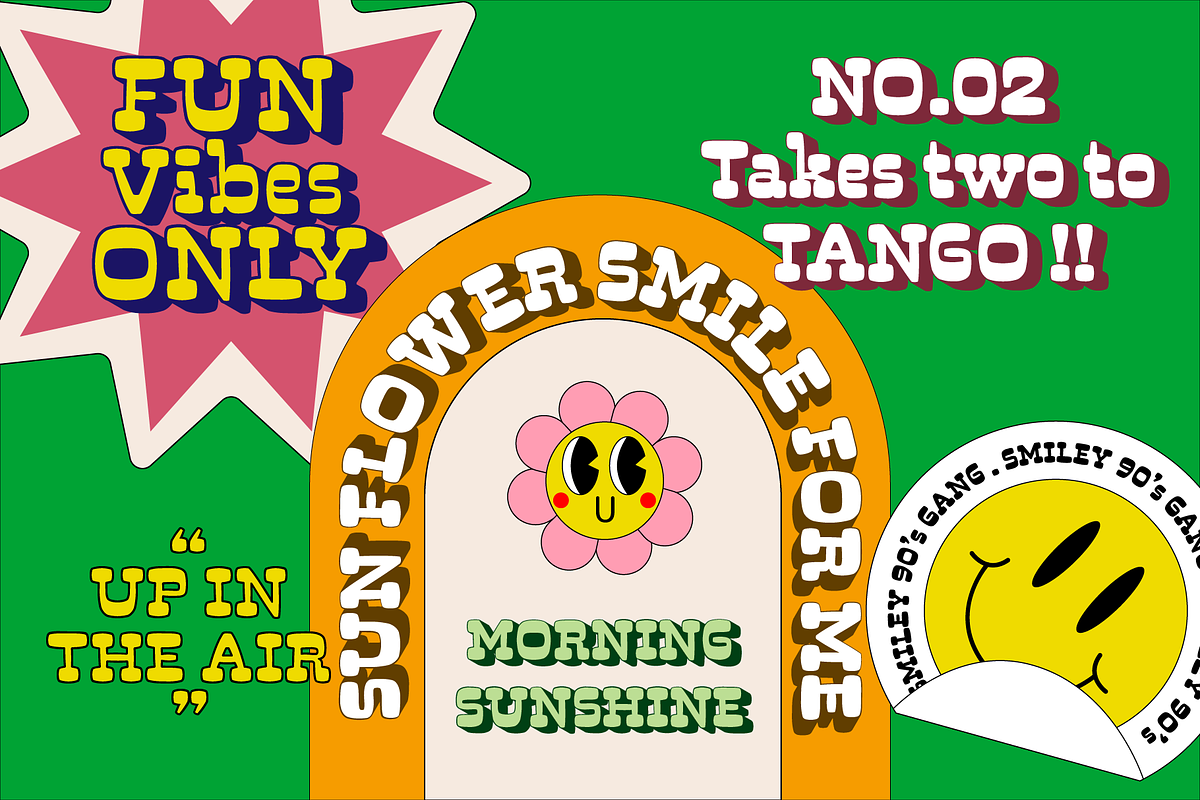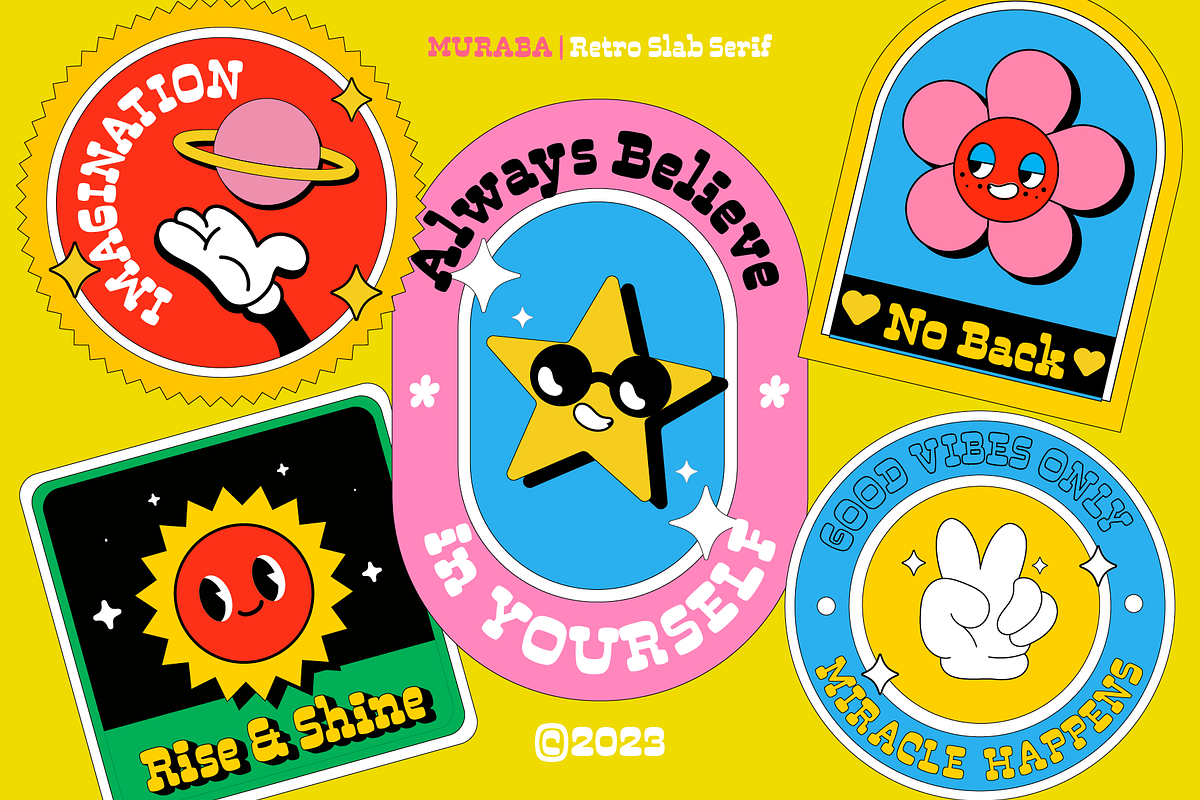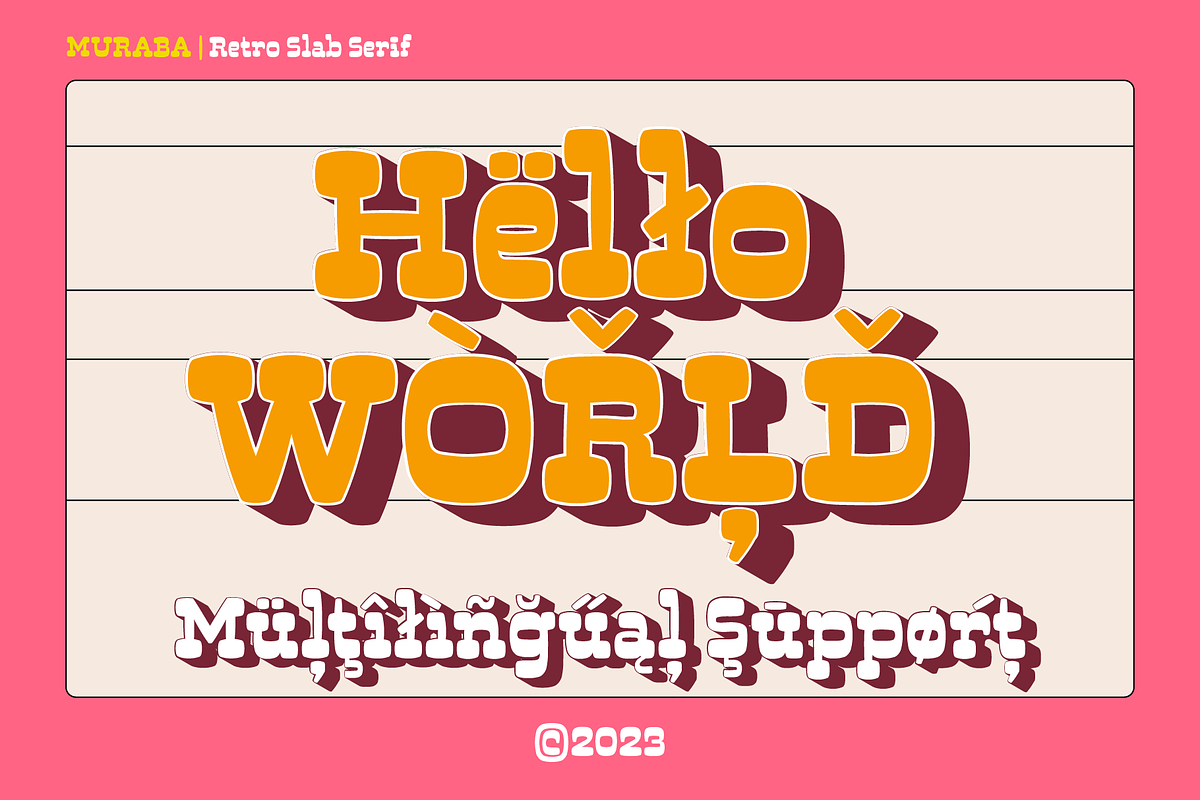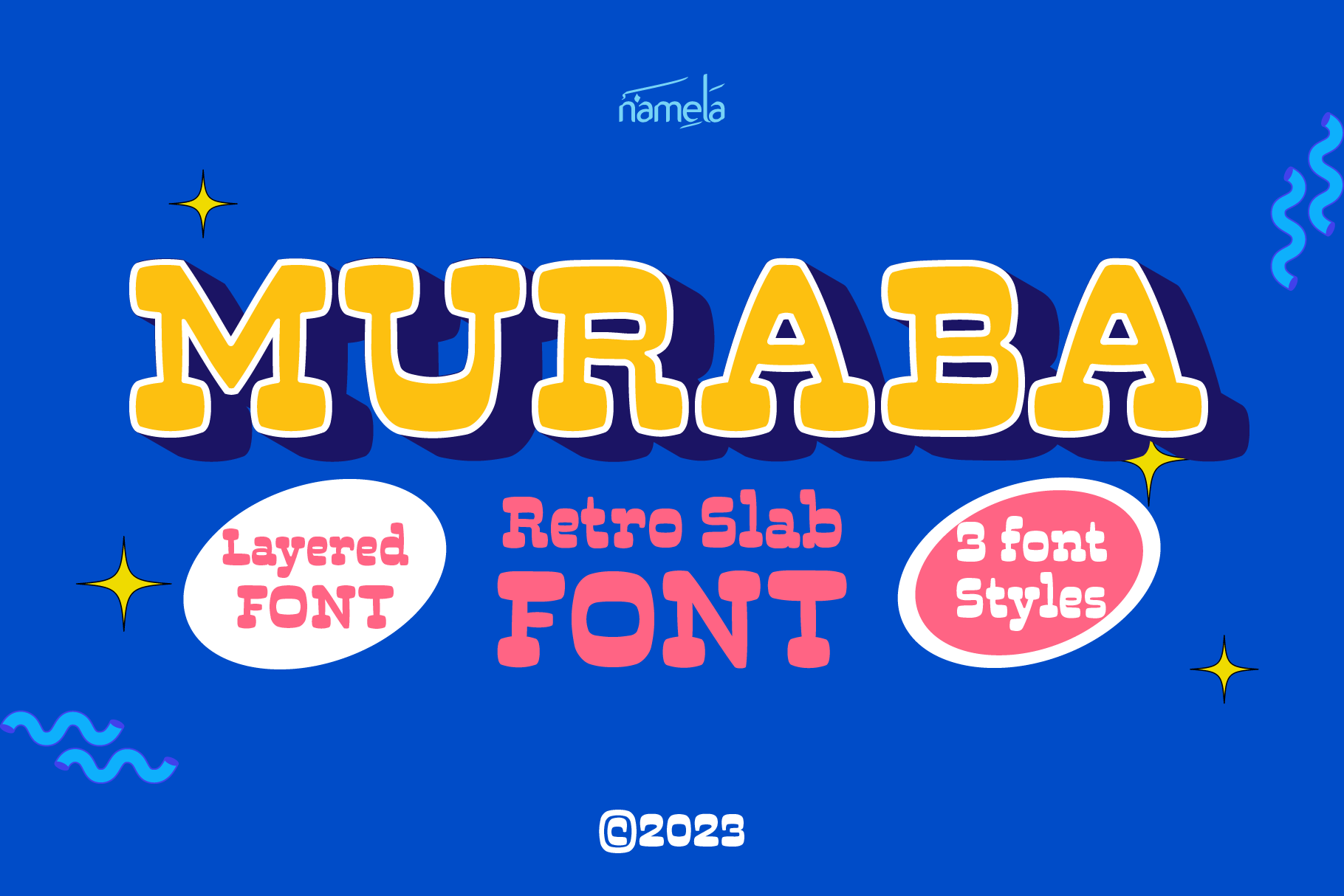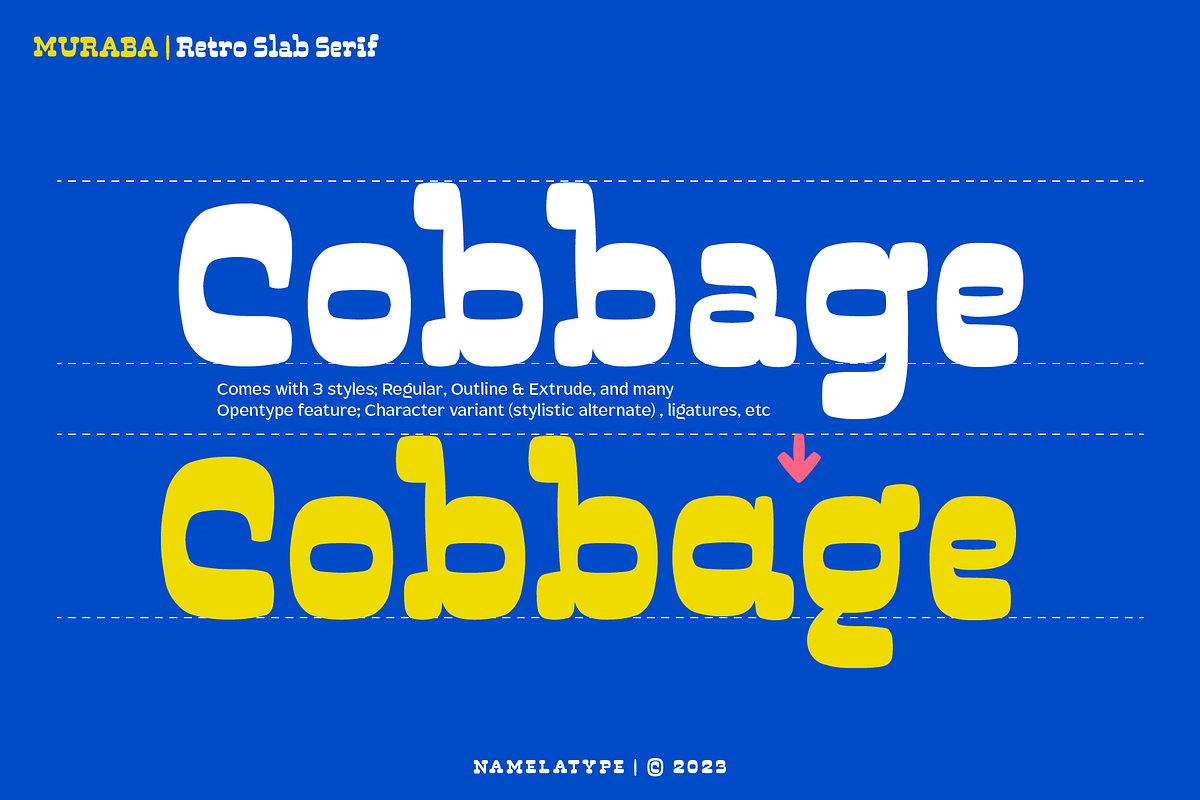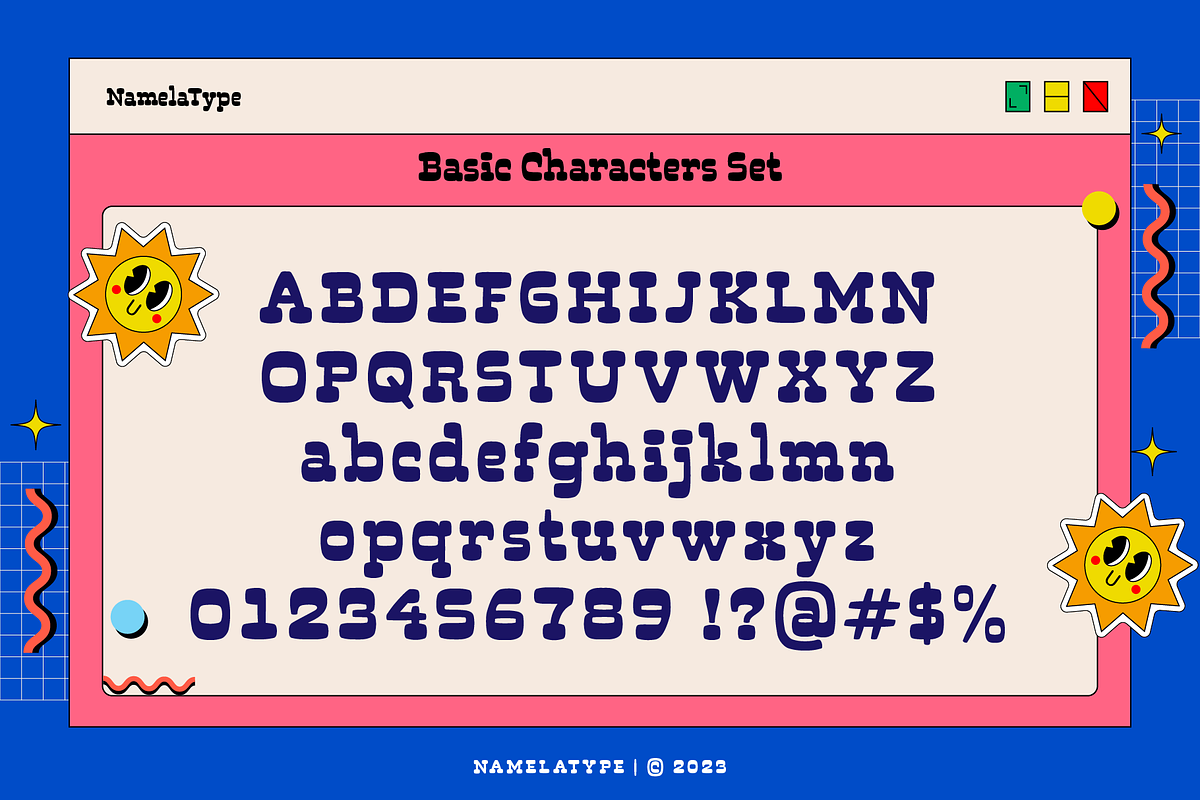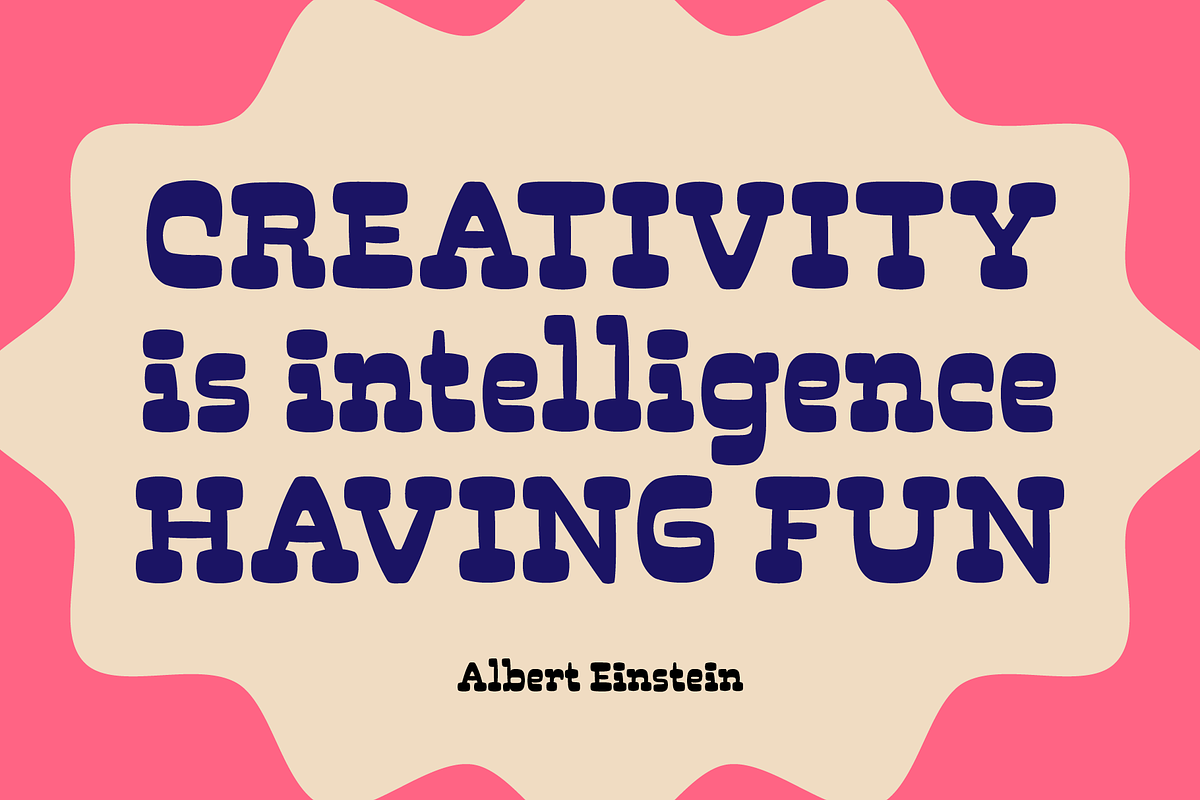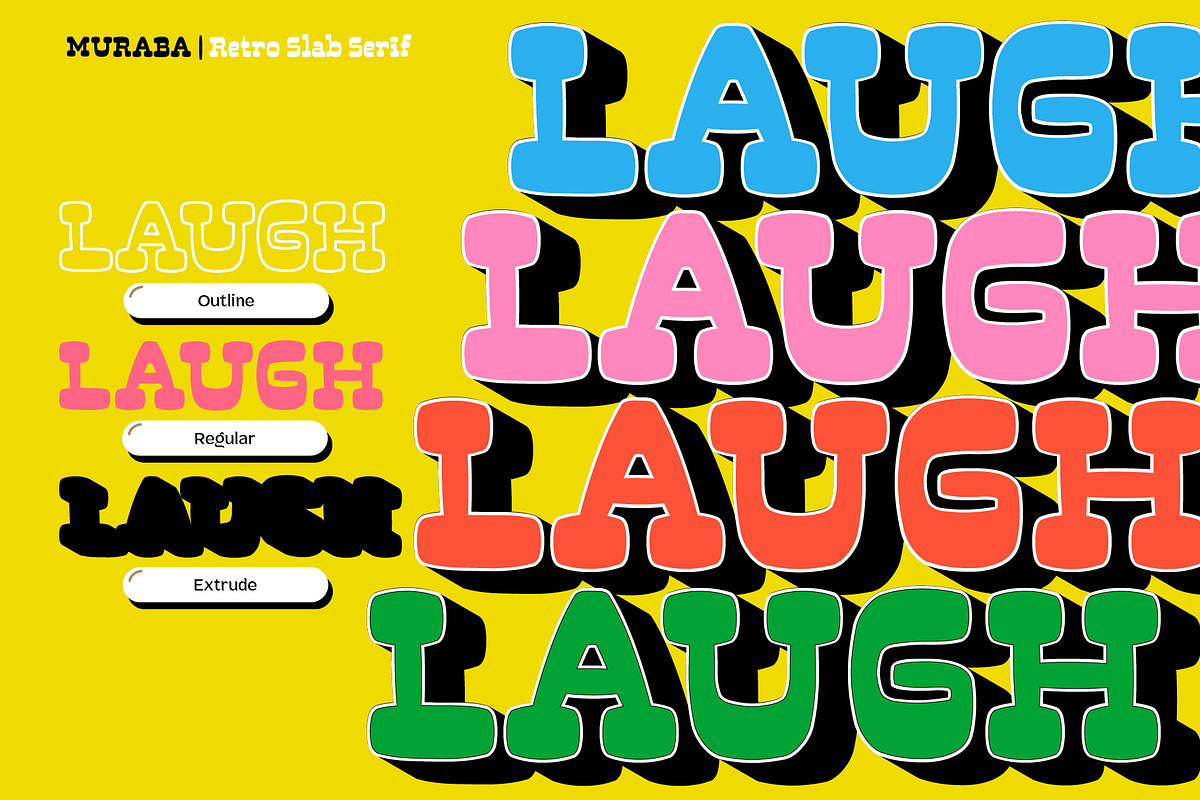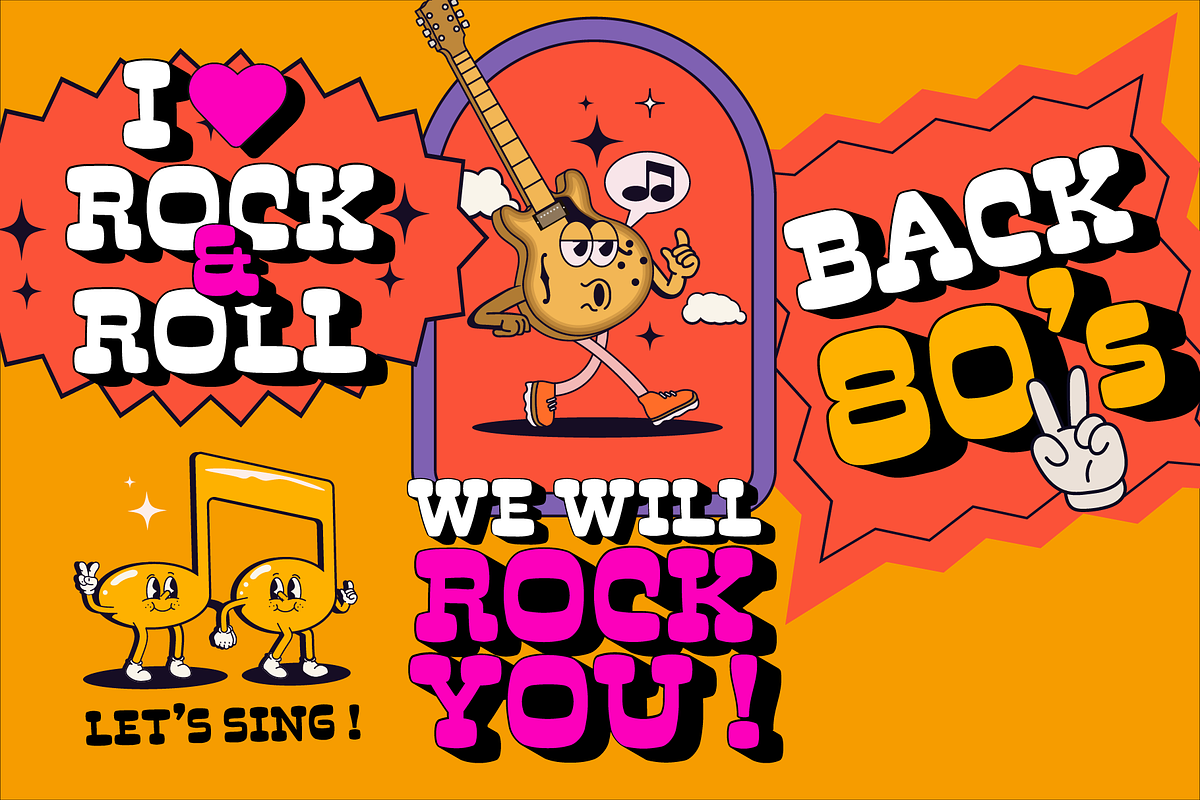
Muraba - Retro Slab Serif Font
Muraba is a vintage Slab serif display font that makes a statement with its bold, striking design. Its unique character shines through in the thick, squared-off serifs, adding a touch of decorative elegance to every character.
Muraba Retro Slab Font is a versatile gem, suitable for a myriad of creative applications. Whether you’re crafting a logo, designing eye-catching headers, or showcasing important information in display text